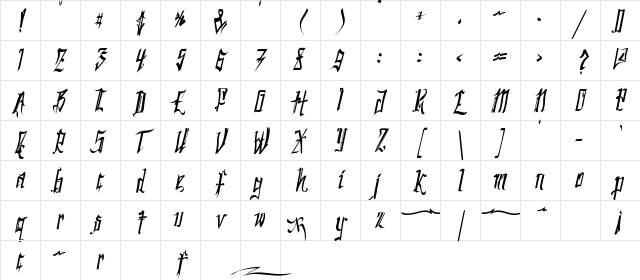
SC Kingston Regular Free Font
SC Kingston Regular
Design Context for SC Kingston
SC Kingston is a composed and adaptable typeface that performs quietly and consistently across a wide range of design contexts.
Pro Tip: Use SC Kingston in both headline and body roles to test its range before committing to a single application.